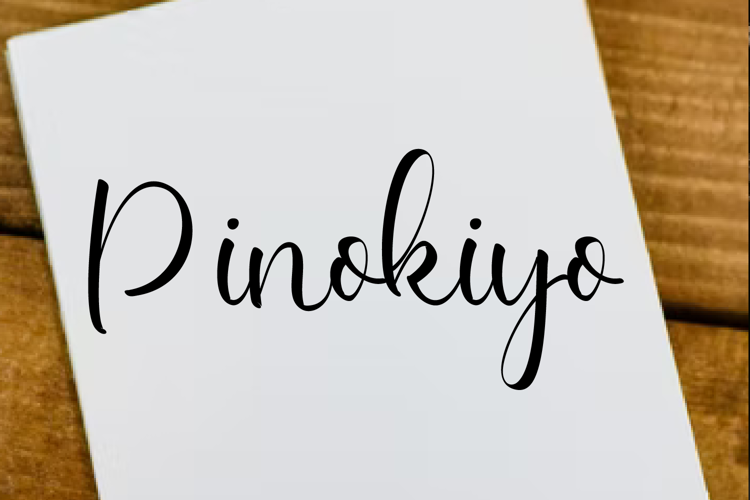
Pinokiyo Font
the latest style letters are perfect for wall displays, wedding invitations, social media post logos, advertisements, product packaging, product designs, labels, photography, watermarks, invitations, stationery, and any project that requires taste handwriting.